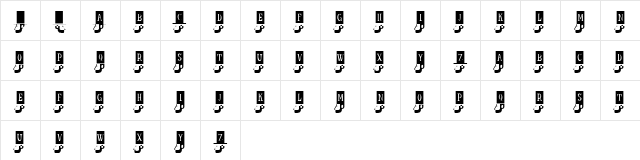
KR Honest Abe Regular
Design Context for KR Honest Abe
KR Honest Abe is a composed and adaptable typeface that performs quietly and consistently across a wide range of design contexts.
Pro Tip: Use KR Honest Abe in both headline and body roles to test its range before committing to a single application.